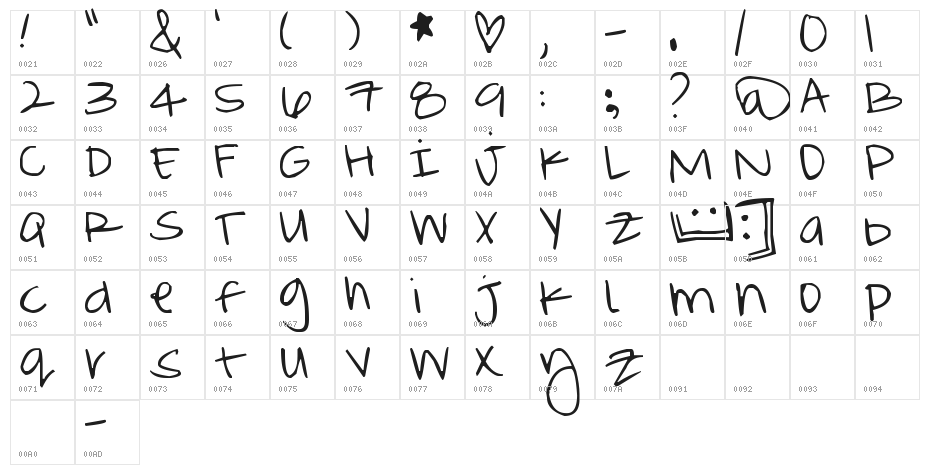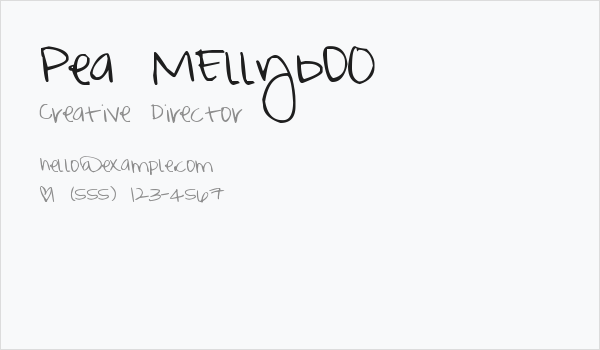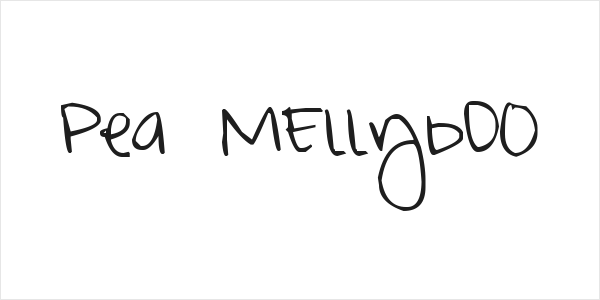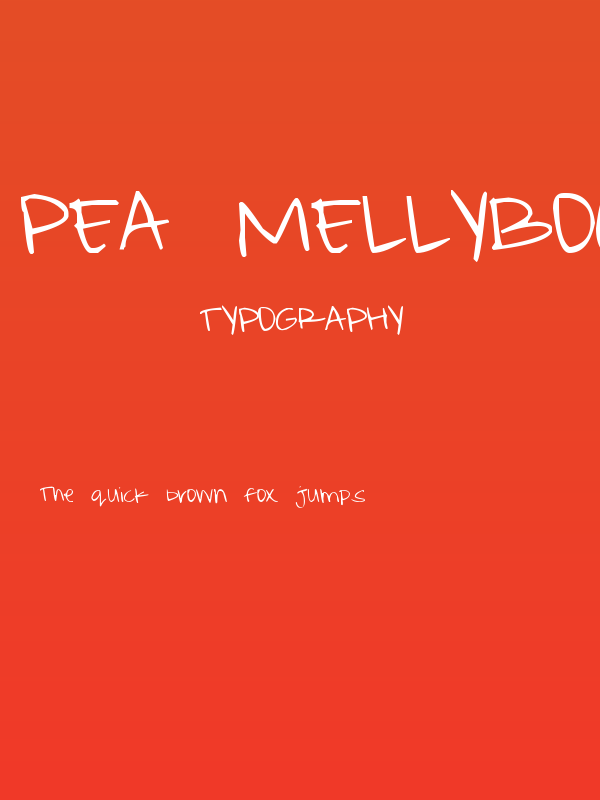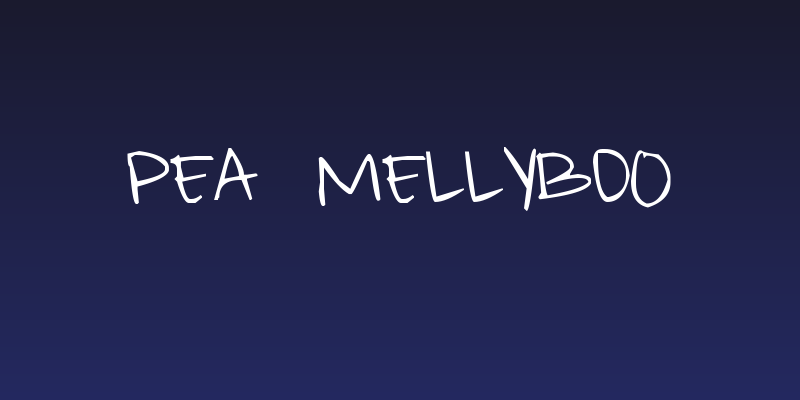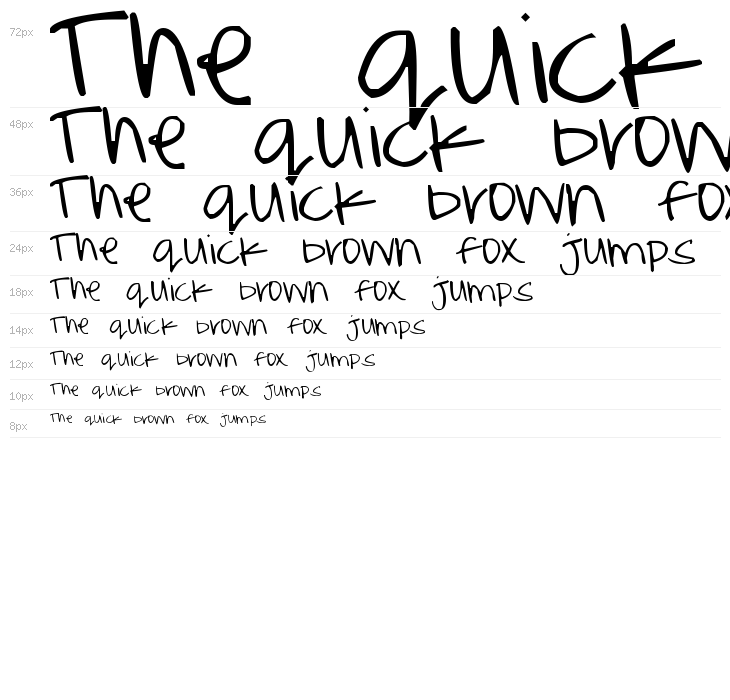
Pea MEllybO0 Font
Pea MEllybO0 Description
This font exudes a playful and casual handwritten style, characterized by its loose and informal letterforms. The strokes are uneven, giving it a personal and approachable feel, reminiscent of a quick note or a friendly message. The uppercase and lowercase letters maintain a consistent flow, with a slight tilt that adds to its dynamic appearance. Numbers and special characters follow the same whimsical design, making it versatile for various creative applications. The overall look is lively and engaging, perfect for projects that require a touch of personality and warmth.
| Proposed Projects | Ideal for greeting cards, personal notes, children's books, and playful branding. |